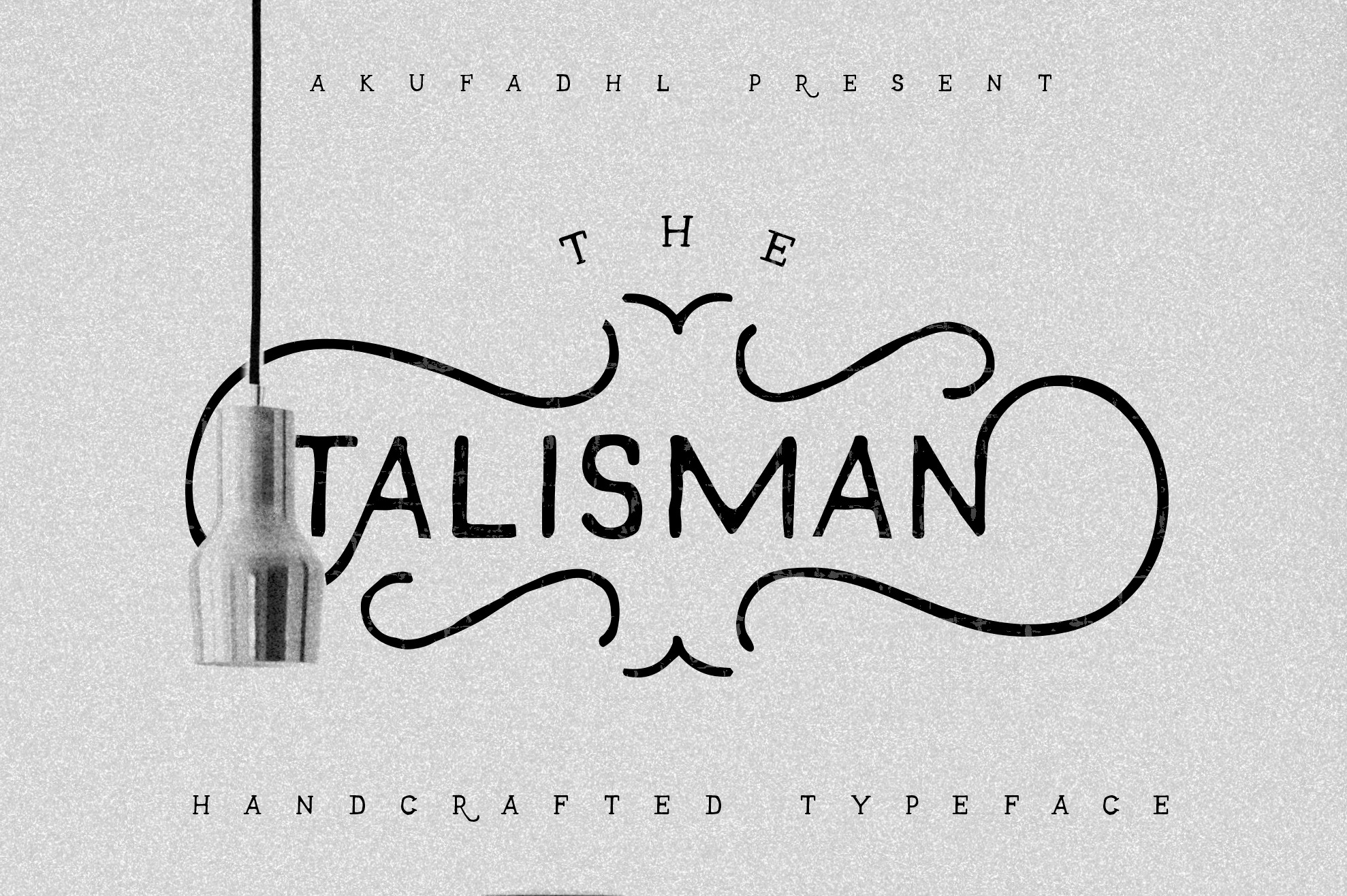
Talisman Handcrafted Typeface
Talisman is a Handcrafted typeface with some great stylistic set. Ligature, contextual alternates, and Ornament. Use your imagination! Combine and make some great Lettering, Invitation, Logo, and many more.